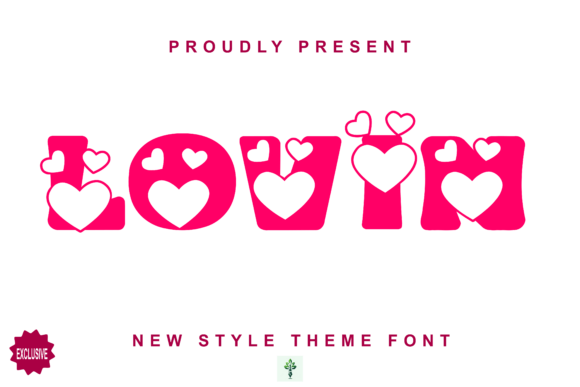
Lovin Font: Unlocking Creative Potential with a Groundbreaking Typeface
In the realm of typography, few fonts have managed to capture the essence of creativity and dynamism as effectively as Lovin. This revolutionary typeface is designed to infuse your artistic endeavors with a vibrant, luminous energy that sets it apart from more traditional fonts. With its unique blend of style and substance, Lovin is poised to become the go-to choice for creatives seeking to elevate their work to new heights.
Introducing Lovin: A Font that Embodies Dynamic Vigor
Lovin is more than just a font – it’s an experience. Its carefully crafted design is imbued with a sense of artistic magnetism that draws the viewer in and refuses to let go. Each letter is meticulously shaped to convey a sense of movement and energy, making Lovin the perfect choice for projects that require a dash of dynamism. Whether you’re working on a bold new advertising campaign or a cutting-edge digital project, Lovin is the ideal font to help you make a lasting impression.
The Design Philosophy behind Lovin
The team behind Lovin set out to create a font that would not only be visually stunning but also possess a unique character that would set it apart from other typefaces. To achieve this, they drew inspiration from a wide range of sources, including nature, art, and architecture. The result is a font that is both elegant and edgy, with a distinct personality that shines through in every letter.
One of the key design elements that sets Lovin apart is its use of color. Unlike traditional fonts, which are often limited to a single color or shade, Lovin is designed to be used in a wide range of colors, from bold and bright to subtle and pastel. This versatility makes it easy to tailor the font to your specific needs, ensuring that it always complements your creative vision.
Exploring the Many Applications of Lovin
Lovin is a font that is designed to be versatile, making it suitable for a wide range of creative projects. Here are just a few examples of how you can use Lovin to elevate your work:
- Advertising and Marketing: Use Lovin to create eye-catching headlines and titles that grab attention and refuse to let go.
- Digital Design: Lovin is perfect for digital projects, from social media graphics to website headers and more.
- Art and Illustration: Lovin can be used to add an extra layer of depth and interest to your artwork, making it perfect for illustrations, comics, and more.
- Packaging and Branding: Use Lovin to create bold, eye-catching packaging that stands out on store shelves.
Lovin vs. Fairy: A Comparison of Two Unique Typefaces
For those looking for an alternative to Lovin, Fairy is another unique typeface that is worth considering. While both fonts share some similarities, they each have their own distinct character and design philosophy.
Fairy is a more whimsical font, with a playful, hand-drawn feel that makes it perfect for projects that require a touch of magic and wonder. Lovin, on the other hand, is more bold and dynamic, with a focus on clean lines and geometric shapes.
The Benefits of Using Lovin in Your Creative Projects
So why choose Lovin for your creative projects? Here are just a few benefits of using this groundbreaking typeface:
- Unique Design: Lovin is a truly one-of-a-kind font that will set your work apart from the competition.
- Versatility: Lovin can be used in a wide range of creative projects, from advertising and marketing to digital design and art.
- Ease of Use: Lovin is easy to install and use, making it accessible to creatives of all skill levels.
- Dynamic Energy: Lovin exudes a sense of dynamic energy that will help bring your creative projects to life.
Tips for Getting the Most out of Lovin
To get the most out of Lovin, here are a few tips to keep in mind:
- Experiment with Color: Don’t be afraid to try out different colors and combinations to find the one that works best for your project.
- Play with Size: Lovin looks great in a wide range of sizes, from small and subtle to large and bold.
- Mix and Match: Try combining Lovin with other fonts to create a unique and eye-catching effect.
In conclusion, Lovin is a truly groundbreaking typeface that is poised to revolutionize the world of typography. With its unique blend of style, substance, and dynamic energy, Lovin is the perfect choice for creatives looking to elevate their work to new heights. Whether you’re working on a bold new advertising campaign or a cutting-edge digital project, Lovin is the ideal font to help you make a lasting impression.